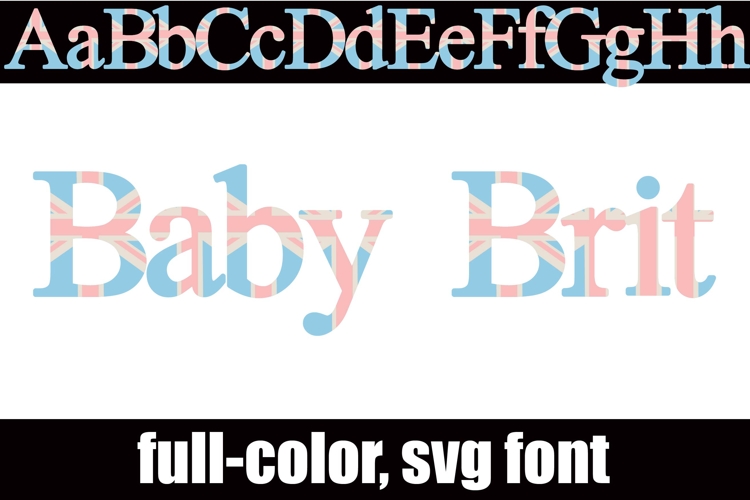
Baby Brit Color Font
This hand-crafted font is a Union Jack flag design in a pastel color palette. There is an alt case of each letter with a different color combination.